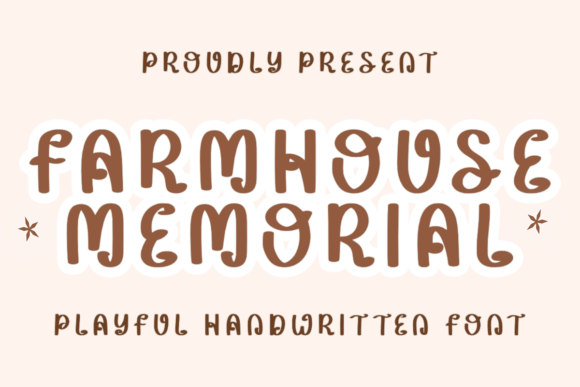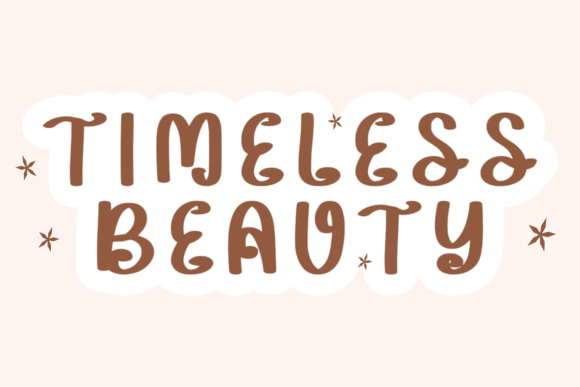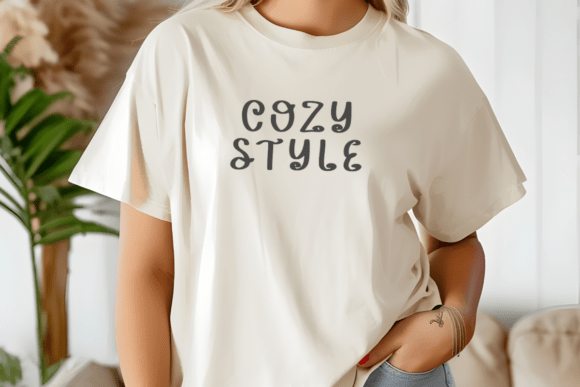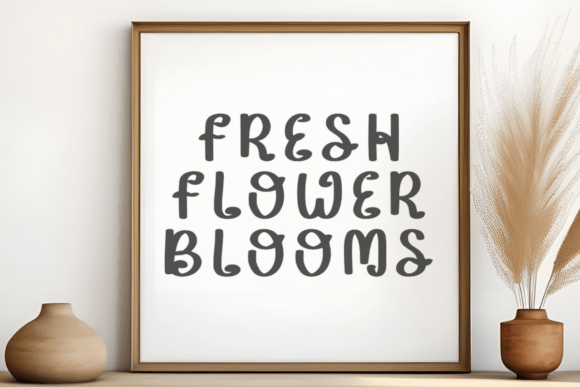
Farmhouse Memorial Font
About the Farmhouse Memorial Font
Explore the possibilities with Farmhouse Memorial Font, a font that offers both beauty and functionality. Farmhouse Memorial is a cute and playful handwriting font, perfect for planners, stickers, cards, quotes, and craft projects. Ideal for creative moms who love DIY, journaling, and Cricut crafts!
Its playful, slightly informal style makes it ideal for branding projects targeting a young, creative demographic, particularly in areas like crafting, children’s products, or small businesses with a handmade aesthetic. It works well for short text applications such as logos, headlines, and social media graphics, but its inconsistent stroke weights make it less suitable for body copy or extended reading.
For optimal visual balance, pair Farmhouse Memorial with a clean sans-serif font like Lato for body text or a more structured serif like Playfair Display for headings that require a touch of elegance. Alternatively, a simple geometric sans-serif can create a modern contrast.
The font’s overall personality is best described as cheerful and approachable, with a distinctly hand-drawn quality. Avoid using it in contexts demanding sophistication or formality.
Farmhouse Memorial Font Usage Examples
Farmhouse Memorial Font Example